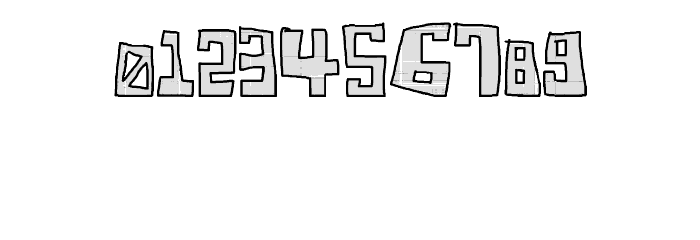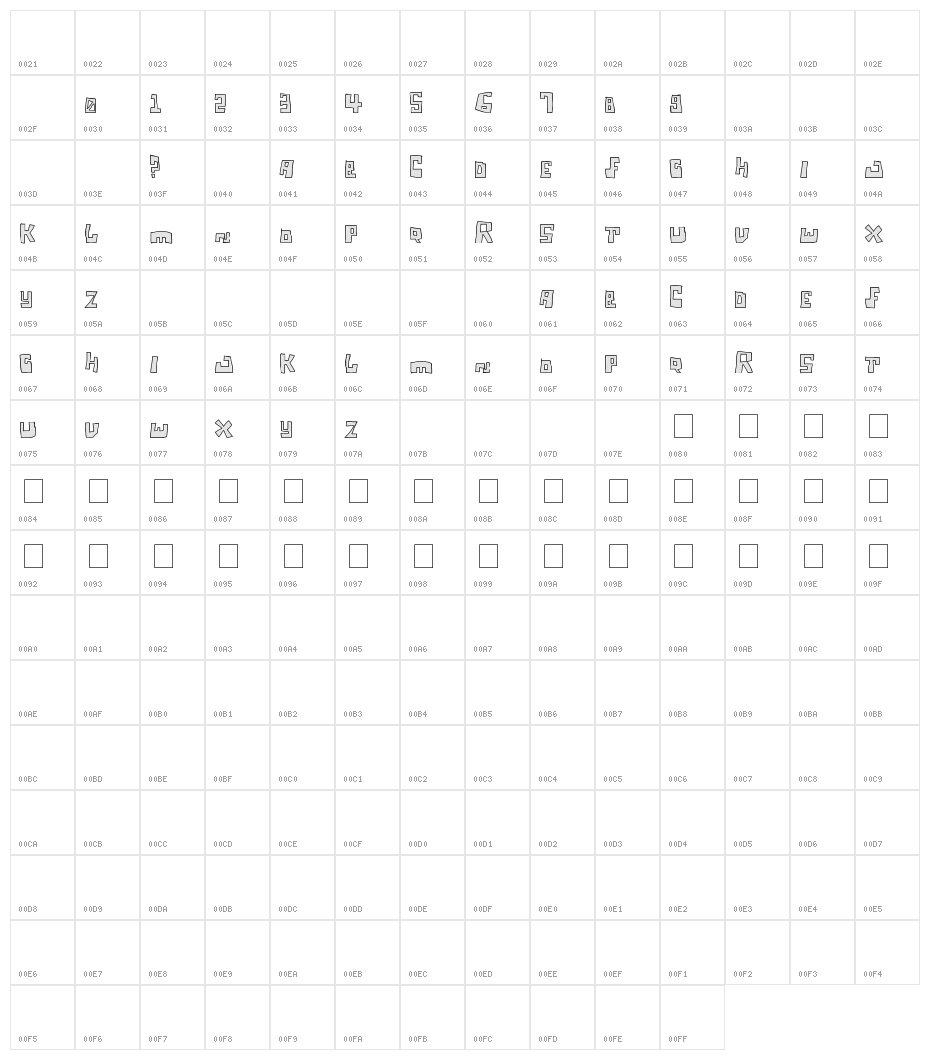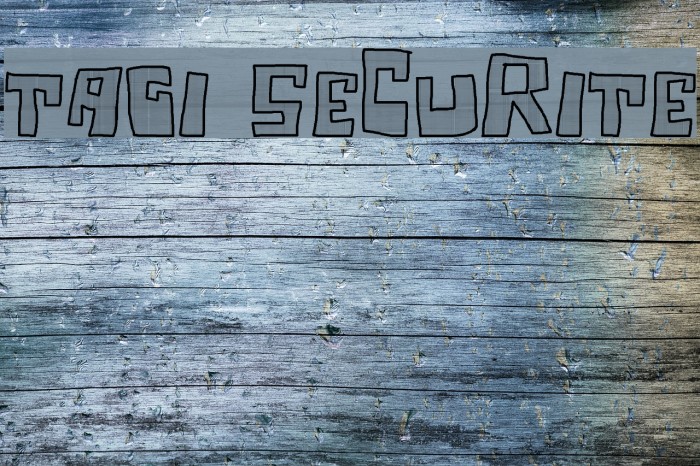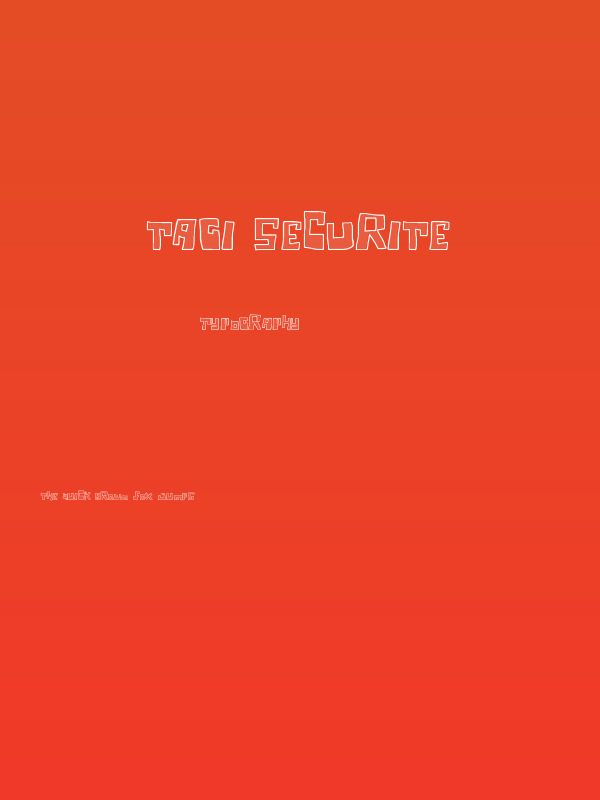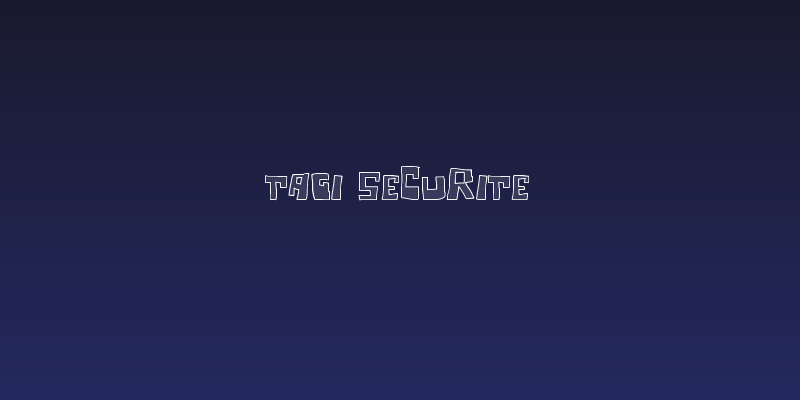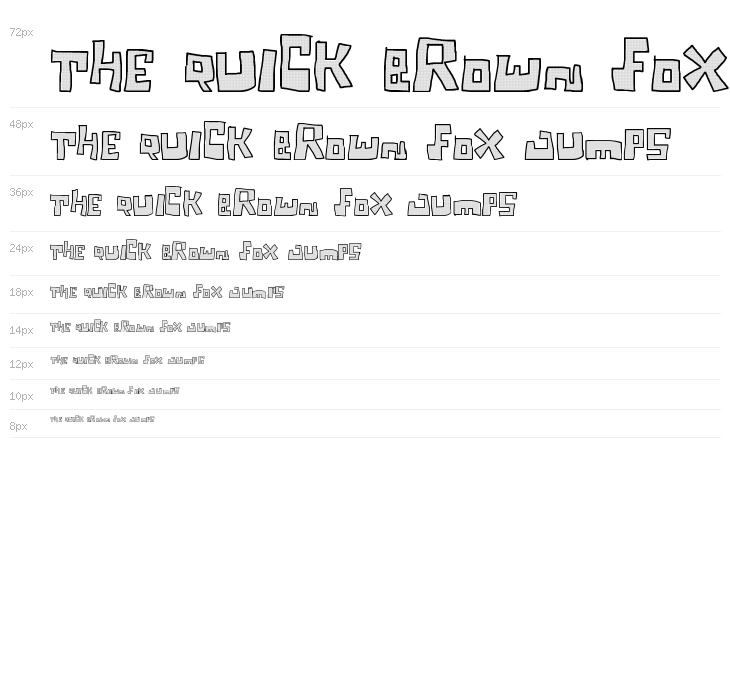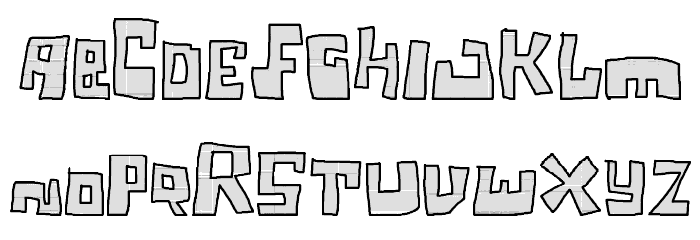
Tagi Securite Font
Tagi Securite Description
This font features a bold and playful design with a hand-drawn, graffiti-like style. Each character is uniquely shaped, with irregular edges and a slightly uneven baseline, giving it a casual and artistic appearance. The letters are uppercase and lowercase, with numbers and a selection of special characters. The overall look is reminiscent of street art, making it ideal for projects that require a creative and informal touch. The characters are outlined, adding a layer of depth and dimension to the font.
| Proposed Projects | Ideal for street art designs, posters, album covers, and creative branding projects. |